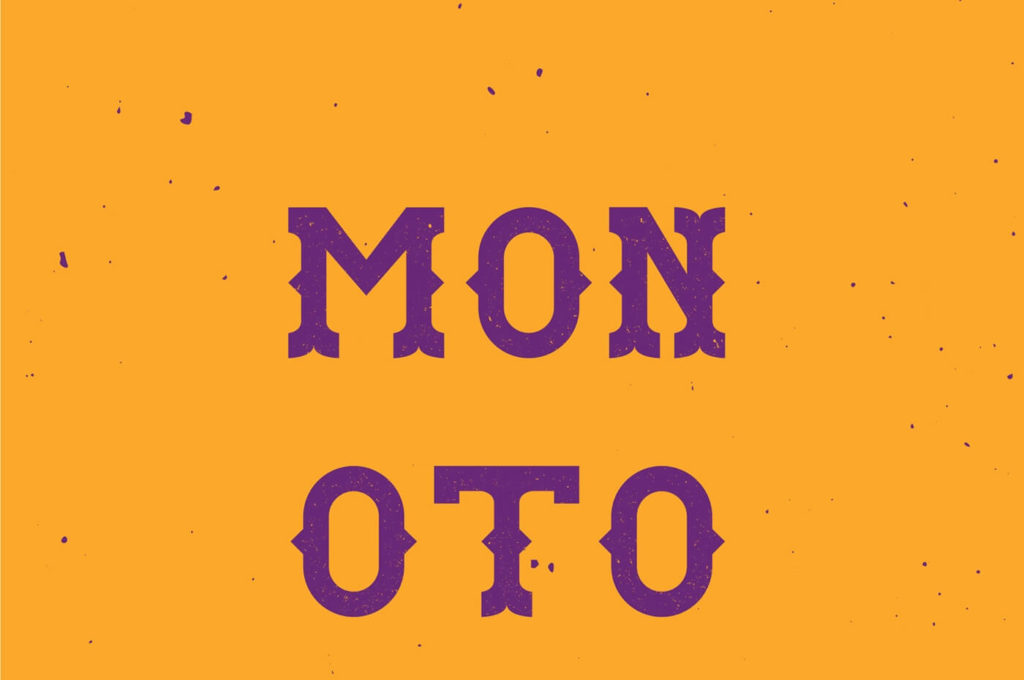
Free Monotonia Typeface
You got a creative project then need something a bit different, a bit more unique in terms of typesetting, consider Monotonia Typeface, created by Eduardo da Floresta.